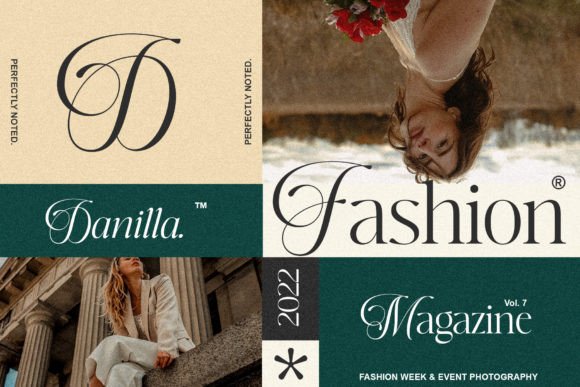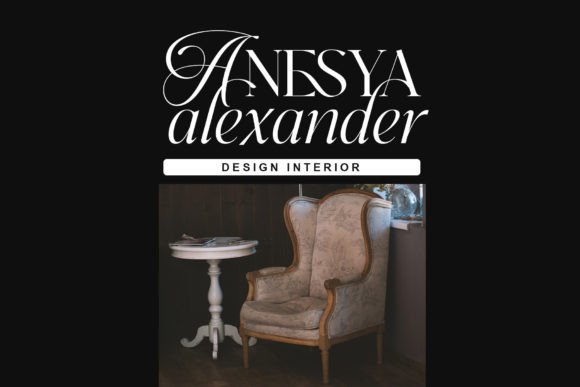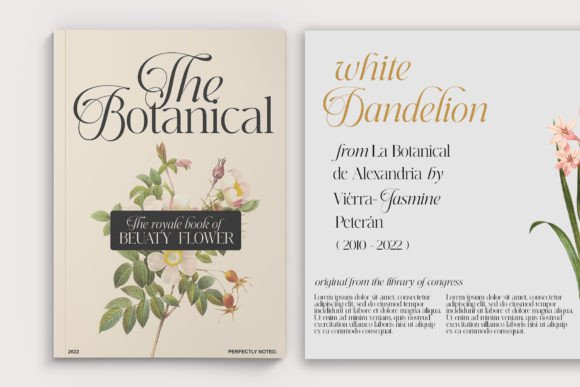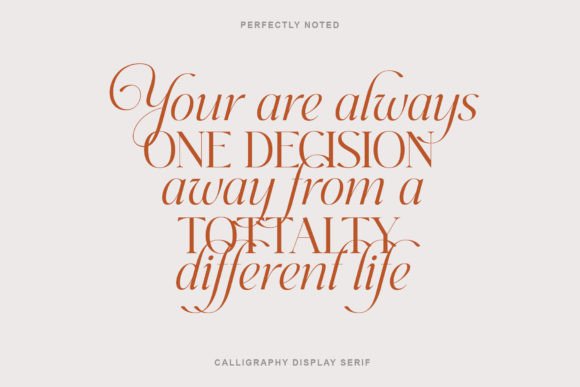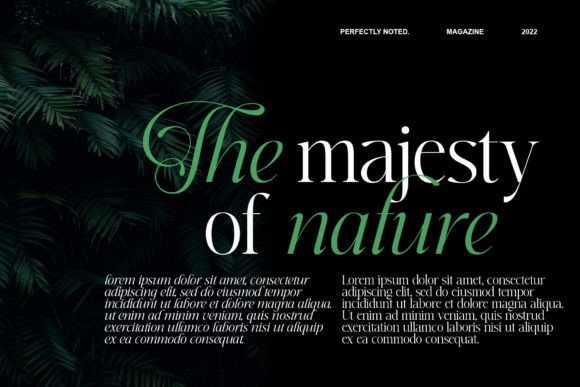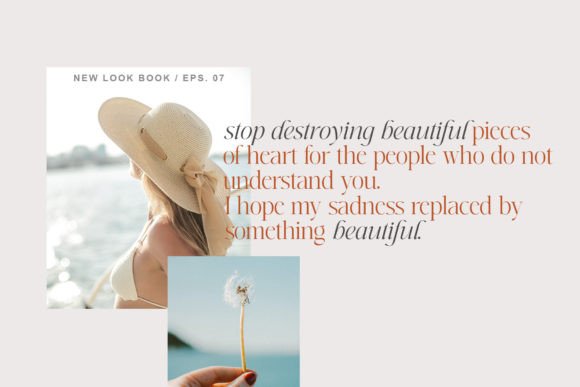
Introduction to Perfectly Noted Font
Have you ever been in the midst of a creative project, pouring your heart and soul into a design, only to be held back by the perfect font – one that elevates your work from good to great? For designers, finding that elusive font can be a challenge, but today we’re excited to introduce you to the Perfectly Noted Font, a stunning duo that’s sure to revolutionize your designs.
This beautiful serif display and script font combination is not only visually striking but also incredibly versatile, making it the perfect design resource for any project. With its timeless style, you can create spectacular designs that will leave a lasting impression. Whether you’re working on a free download or a high-end commercial project, the Perfectly Noted Font is sure to be a valuable addition to your design toolkit.
Key Features of Perfectly Noted Font
- High-quality design with a modern and minimalist aesthetic, ideal for creative projects.
- Features a transparent background, making it easy to customize and integrate into any design.
- Perfectly Noted Font is a versatile design resource, suitable for a wide range of applications, from logos to typography.
- Includes a large character set, covering multiple languages and characters, making it a great choice for international projects.
Honest Review: Perfectly Noted Font
I recently stumbled upon the Perfectly Noted Font, and I must say it’s a great addition to any designer’s library. As a creative professional, I’m always on the lookout for high-quality design resources that can elevate my projects.
One of the standout features of this font is its transparent background, which makes it incredibly versatile. Whether you’re working on a graphic design project or a digital illustration, this font can be easily manipulated to fit your needs.
- Transparent background for flexibility and customization
- The font family is relatively small, with only a few styles to choose from
Overall, I’m impressed with the Perfectly Noted Font. It’s a great resource for designers who want to add a touch of sophistication to their projects. While it may have some limitations, the benefits far outweigh the drawbacks.
Tips for Getting the Most Out of Perfectly Noted Font
Experiment with different font sizes, colors, and styles to create visually appealing text. Use the font’s transparent background feature to create unique and eye-catching designs.
Common Use Cases for Perfectly Noted Font
Perfectly Noted Font is ideal for creative projects such as blog posts, social media graphics, and presentations. Its high quality and versatility make it a valuable design resource for professionals and hobbyists alike.